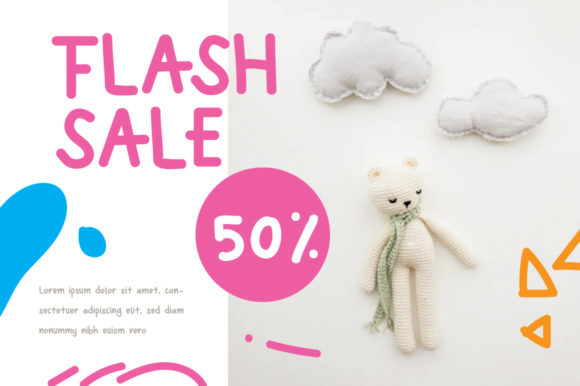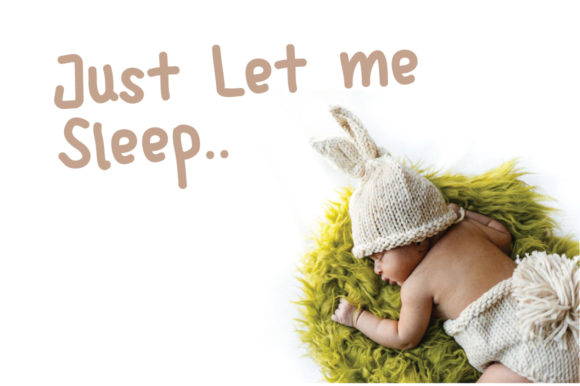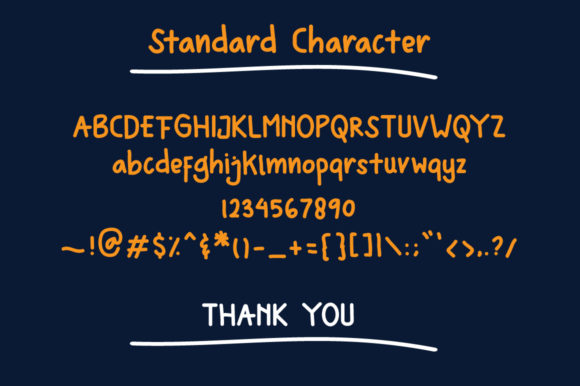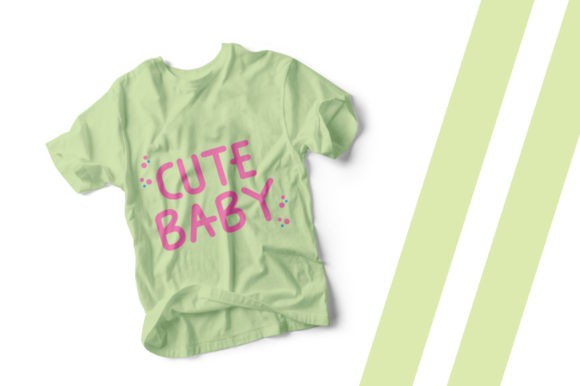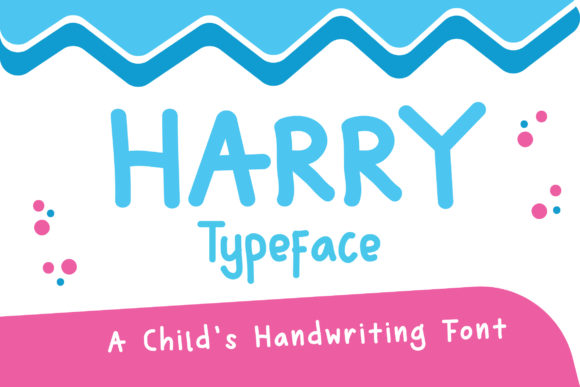
Discover the Delightful Harry Font: Perfect for Kids and School Projects
Are you on the hunt for a font that embodies fun and friendliness? Look no further than the Harry Font! This charming typeface is ideal for a variety of creative projects, particularly those involving kids or school assignments. In this article, we’ll dive into the world of Harry Font, exploring its characteristics, uses, and benefits for designers and crafters.
What is Harry Font?
Harry Font is a playful, whimsical typeface designed to bring a smile to your face. Its fun and friendly demeanor make it perfect for projects that require a lighthearted touch. Whether you’re working on a kids’ party invitation, a school project, or a craft tutorial, Harry Font is sure to add a dash of excitement and energy to your design.
Key Characteristics of Harry Font
- Playful and Whimsical: Harry Font boasts a carefree, playful vibe that’s sure to capture the attention of your audience.
- Fun and Friendly: The font’s friendly demeanor makes it perfect for projects that require a approachable, kid-friendly feel.
- Highly Readable: Despite its playful nature, Harry Font remains highly readable, even at smaller font sizes.
- Versatile: Harry Font can be used for a wide range of projects, from digital designs to print materials.
Uses for Harry Font
Harry Font’s versatility makes it suitable for a variety of projects, including:
- Kids’ Party Invitations: Create eye-catching invitations that set the tone for a fun and exciting celebration.
- School Projects: Add a playful touch to school assignments, such as posters, presentations, or worksheets.
- Craft Tutorials: Use Harry Font to add a friendly, approachable tone to your craft tutorials and patterns.
- Digital Designs: Incorporate Harry Font into your digital designs, such as social media graphics, blog posts, or email newsletters.
Harry Font offers several benefits for designers and crafters, including:
- Time-Saving: With Harry Font, you can quickly and easily add a playful touch to your designs, saving you time and effort.
- Consistency: Use Harry Font across multiple projects to establish a consistent visual brand and tone.
- Customization: Harry Font can be customized to fit your specific design needs, allowing you to experiment with different colors, sizes, and styles.
- Emotional Connection: Harry Font’s friendly, approachable nature helps create an emotional connection with your audience, making your designs more engaging and memorable.
Tips for Using Harry Font
To get the most out of Harry Font, follow these tips:
- Pair with Other Fonts: Combine Harry Font with other fonts to create visual interest and add depth to your design.
- Experiment with Colors: Try pairing Harry Font with different colors to create a unique and eye-catching design.
- Keep it Simple: Don’t overcomplicate your design – keep it simple and let Harry Font’s playful nature shine through.
| Font Name | Harry Font |
| Author | Ian Mikraz |
In conclusion, Harry Font is a delightful typeface that embodies fun and friendliness. Its playful, whimsical nature makes it perfect for kids’ projects, school assignments, and craft tutorials. With its highly readable design, versatility, and customization options, Harry Font is an excellent choice for designers and crafters looking to add a lighthearted touch to their work. So why not give Harry Font a try and see how it can bring a smile to your face and your audience’s?